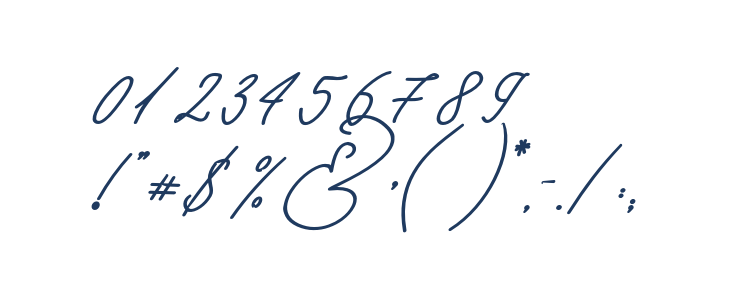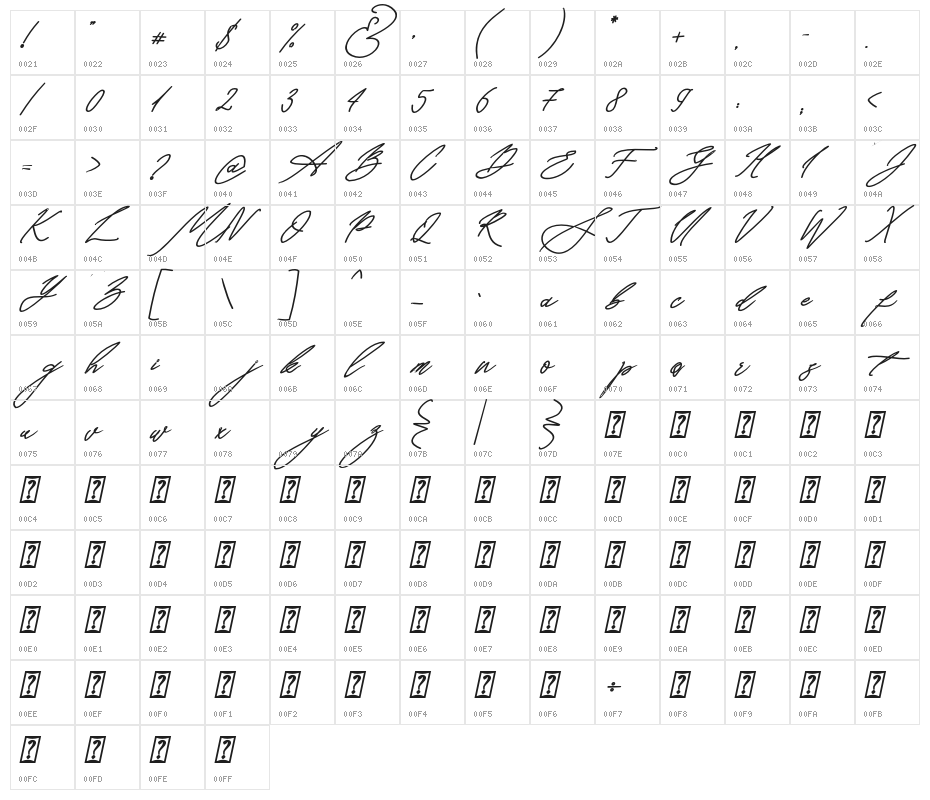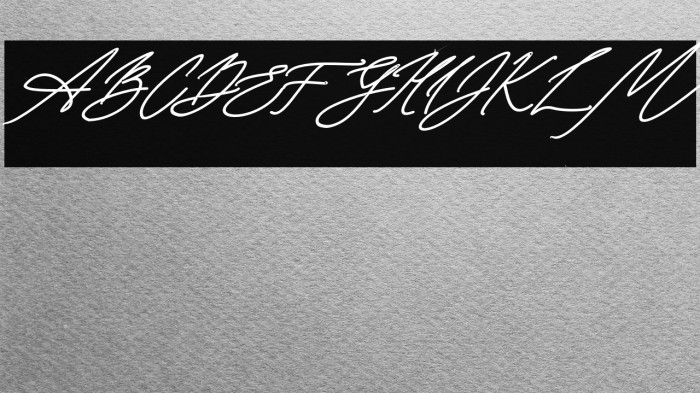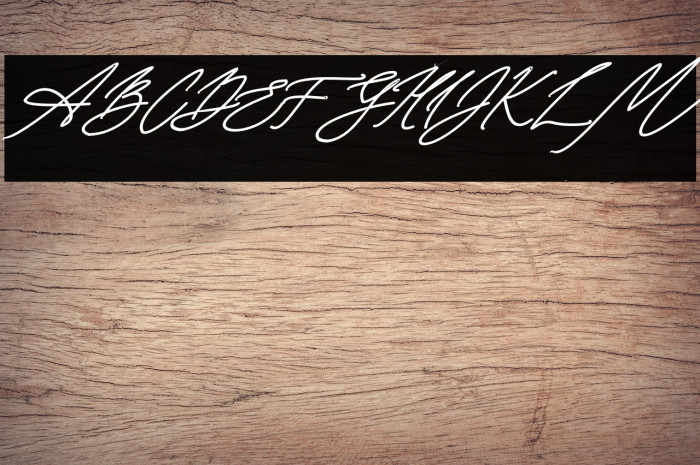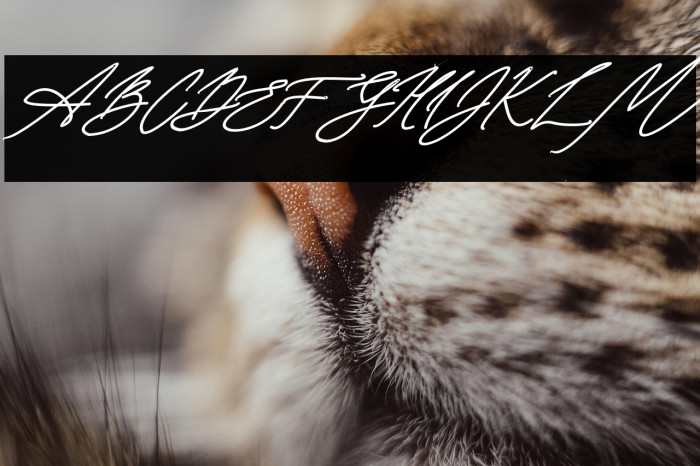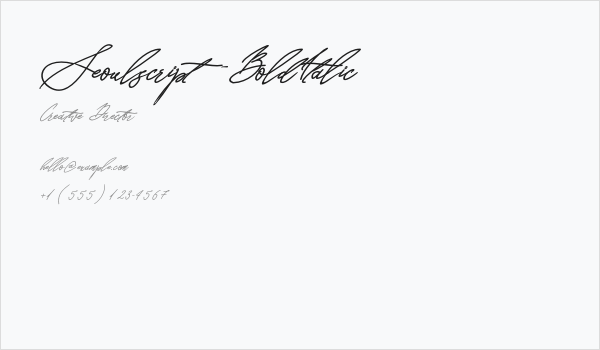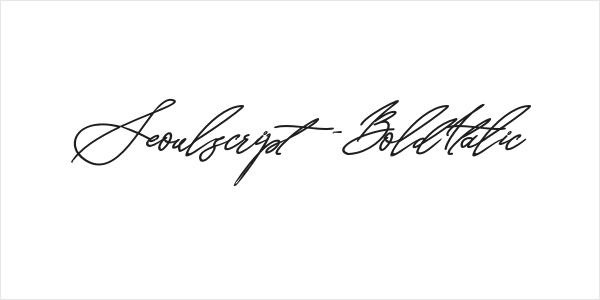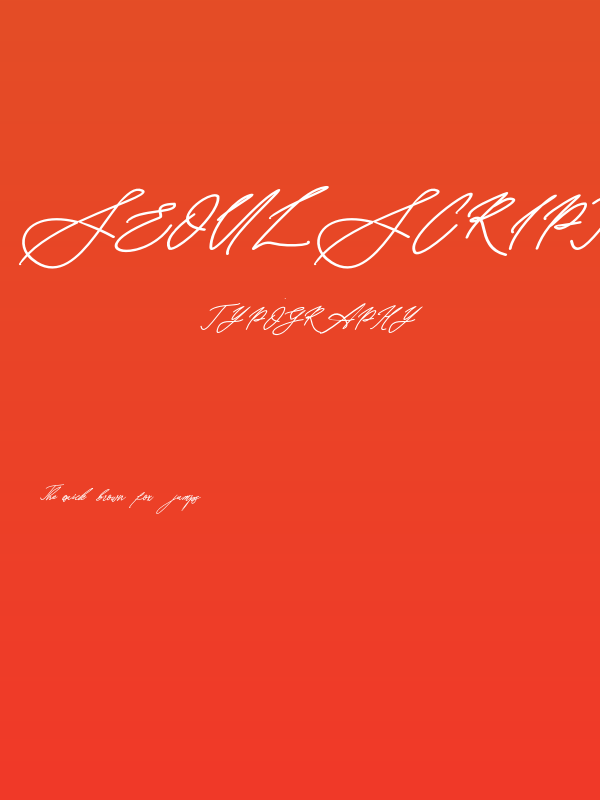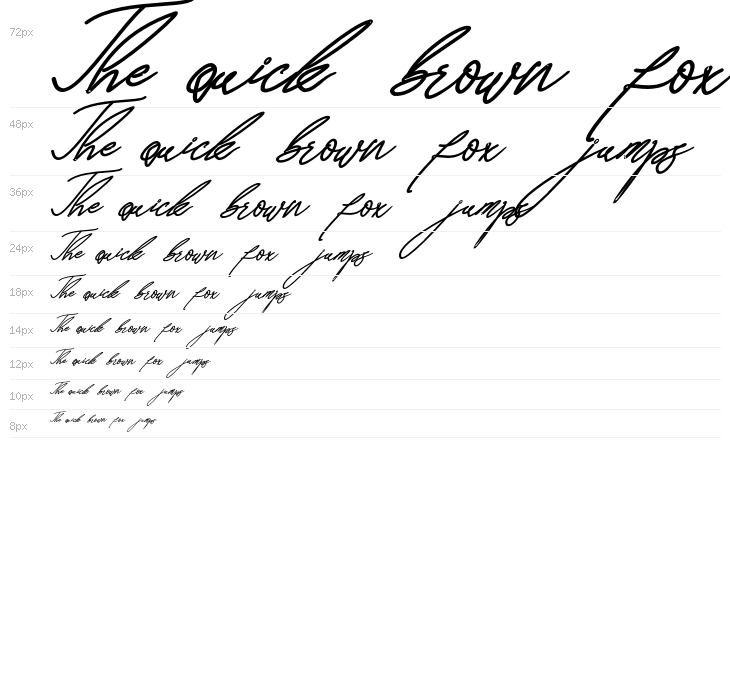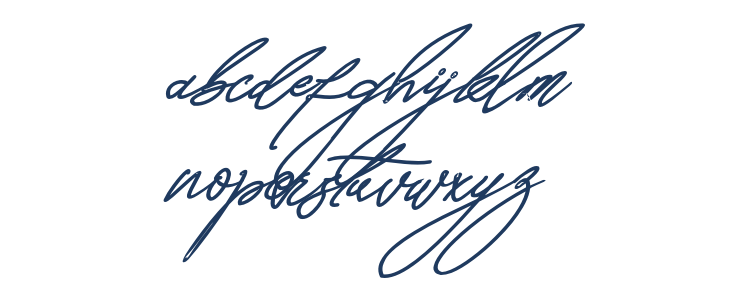
Seoulscript-BoldItalic Font
Seoulscript-BoldItalic Description
This font exhibits a sophisticated and elegant script style, characterized by its flowing, cursive letterforms. The strokes are smooth and connected, giving it a handwritten appearance that is both stylish and refined. The uppercase letters are tall and graceful, while the lowercase letters maintain a consistent flow, enhancing readability. The numerals and special characters are designed to complement the overall script style, maintaining the same fluidity and elegance. This font is ideal for projects that require a touch of class and sophistication.
| Proposed Projects | Ideal for wedding invitations, elegant branding, personal signatures, and upscale packaging designs. |